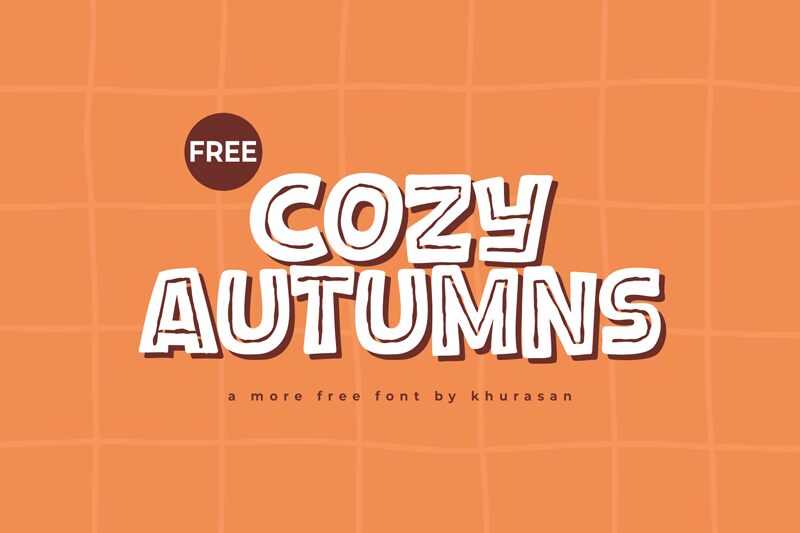
Cozy Autumns
Cozy Autumns font by Khurasan is a free bold hand-drawn cartoon display font. It stands out with chunky, softly rounded letters and scratchy white inlines that feel like chalk strokes on a blackboard. The slightly wobbly outlines add a friendly, handmade hug—warm, grainy, and a little mischievous—so headlines look lively without getting messy.
Using Cozy Autumns, your fall festival posters, kids’ book covers, classroom bulletin boards, bakery packaging, greeting cards, and playful social posts will pop with inviting character. The steady rhythm and generous counters keep it readable at large sizes, even over busy textures. Pair this free font with a clean geometric sans for body copy, and set headlines big with snug line spacing to let those inky highlights shine.